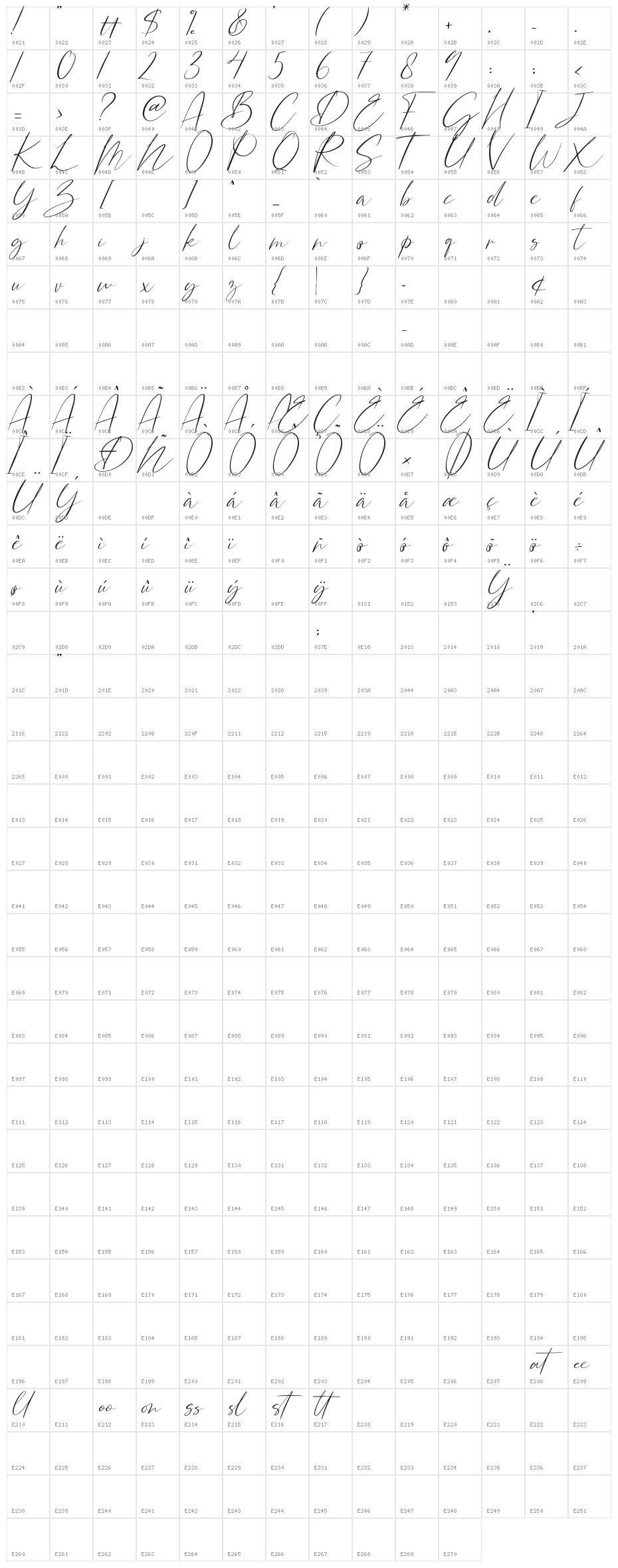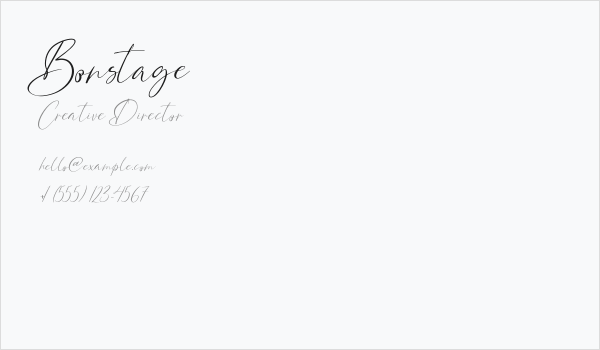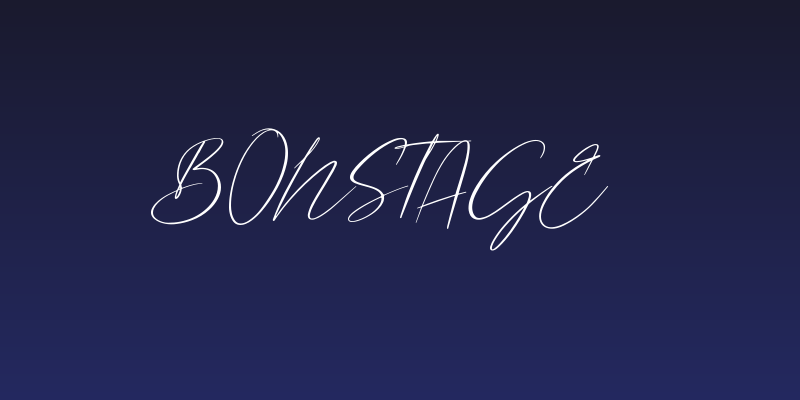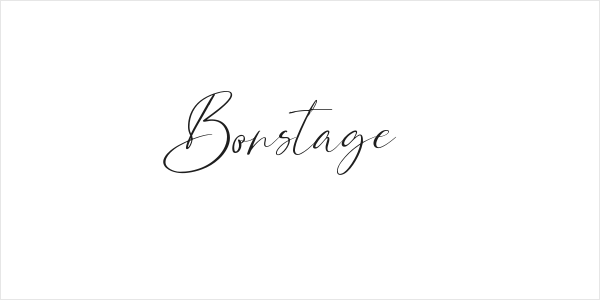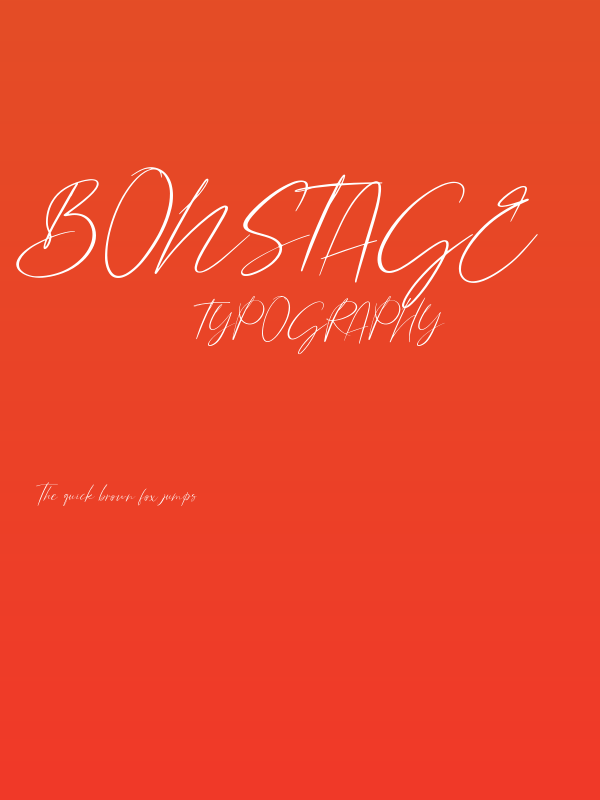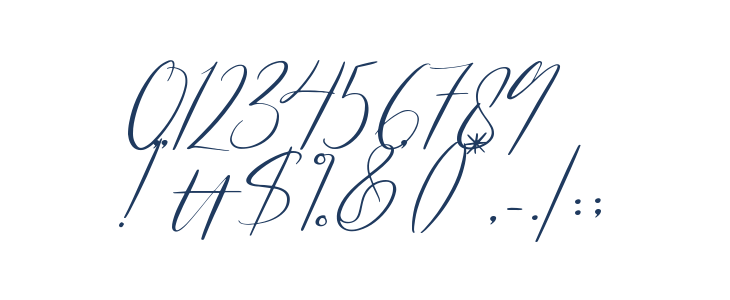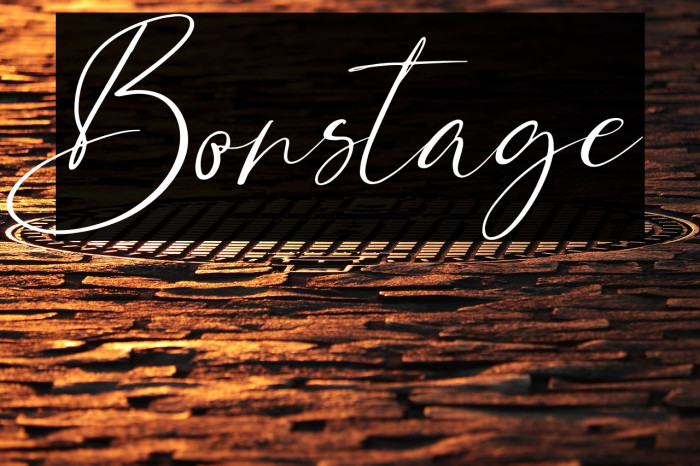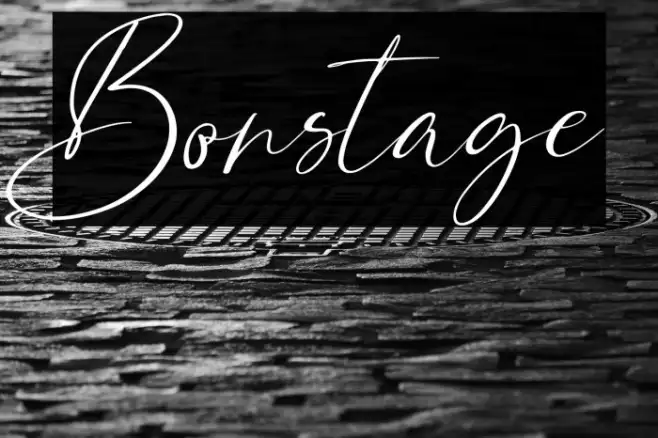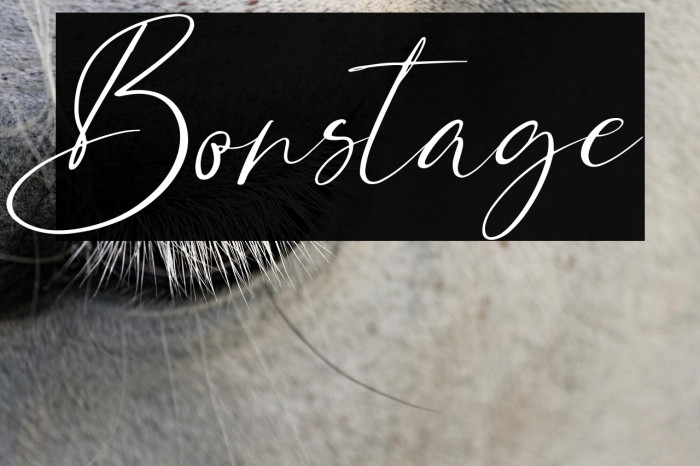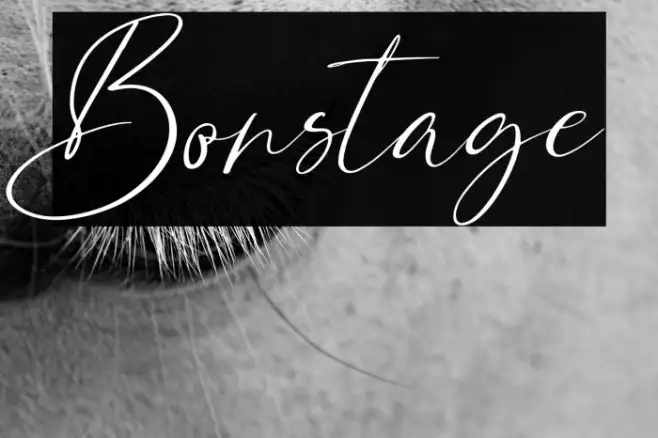
Bonstage Font
Bonstage Description
This font exudes elegance and sophistication with its fluid, cursive style. The characters are interconnected, creating a seamless flow that mimics natural handwriting. The strokes are thin and graceful, with a slight slant that adds to its dynamic appearance. The uppercase letters are tall and commanding, while the lowercase letters maintain a consistent rhythm, enhancing readability. The numerals and special characters are designed with the same attention to detail, ensuring a cohesive look across all elements. This font is perfect for projects that require a personal touch, such as invitations, branding, and editorial design.
| Use Case | Logos, Invitations, Editorial Design |
| Proposed Projects | Ideal for wedding invitations, personal branding, elegant stationery, and editorial design. |